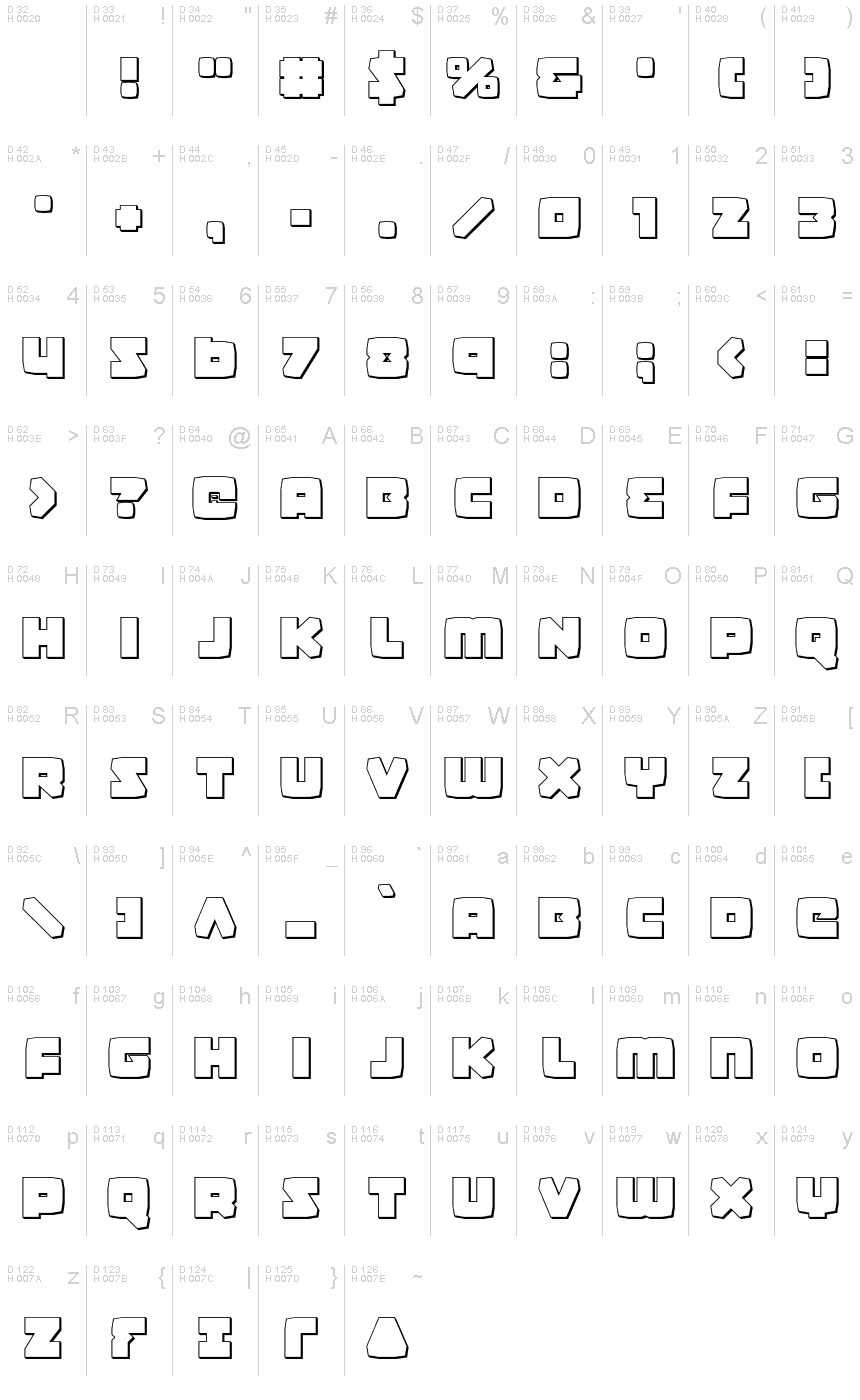
Gamer Spot 3D
Gamer Spot 3D is a stunning display font that will bring your designs to life with its extra-bold weight and extra-expanded width. Created by the talented team at Iconian Fonts, this 3D techno style typeface is perfect for gaming projects, futuristic designs, and any project that requires an edgy, high-tech look. Use it for logos, posters, websites, or even in-game graphics. The possibilities are endless with Gamer Spot 3D. Its unique design will grab attention and make a bold statement wherever it's used. Take your designs to the next level with this powerful font!